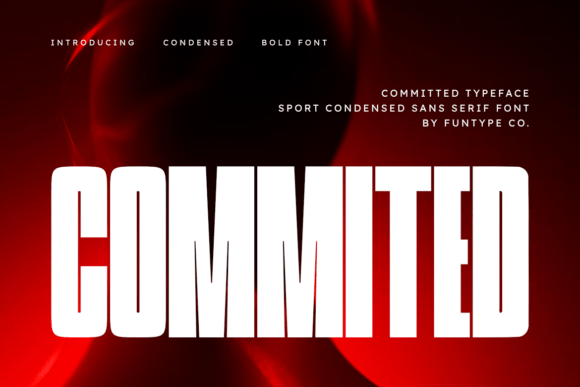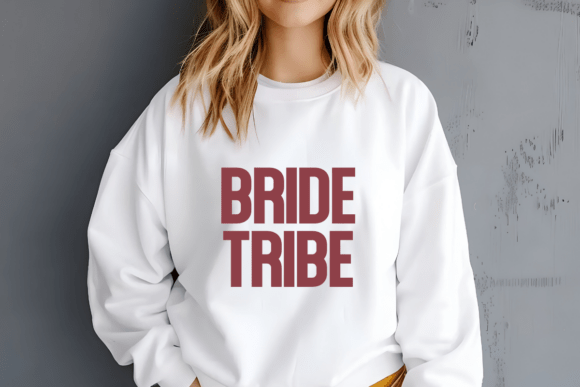
Commited Font: Bold Sans Serif Style for Craft and Product Design
Commited for Craft Labels and Product Packaging
Commited is a bold and powerful sport condensed sans serif font designed for impactful and commanding typography. With its tall, refined structure and heavy geometric lines, this font is perfect for crafters and small business owners who need clear, strong lettering on product labels and packaging. Whether you're designing candle jars, soap tags, or boutique-style product wraps, Commited ensures your brand name or product title stands out with confidence and clarity. The condensed form allows for compact yet legible use, making it ideal for small labels and tags without losing visual punch.
Commited for Wedding Invitations and Elegant Stationery
As a sans serif typeface, Commited brings a modern, clean aesthetic to wedding invitations and formal stationery. Its geometric structure gives a contemporary edge, while the bold weight adds a sense of sophistication and strength. Whether you're printing save-the-dates, RSVP cards, or seating charts, this font helps your design feel intentional and professional. Because of its tall letterforms, Commited works especially well for names and titles, ensuring readability even in smaller print sizes or digital previews.
Commited for Wall Art and Home Decor Signs
If you create wall art or farmhouse-style signs, Commited brings a strong visual presence to your pieces. The bold and powerful structure makes it ideal for motivational quotes, family name signs, or seasonal decor. Whether you're laser-cutting wood signs or printing on canvas, this font holds up beautifully in both small and large formats. Its clean, geometric lines pair well with minimalist or industrial design themes, making it a versatile choice for home decor creators.
Commited for Digital Printables and Planner Pages
For digital product creators, Commited is an excellent choice for planner pages, digital stickers, and printable calendars. Its condensed style allows for compact headers and titles without sacrificing legibility. As a font that’s both bold and structured, it helps organize content visually, guiding the viewer’s eye through the layout with ease. Whether you're designing weekly planners or goal trackers, Commited adds a modern, organized feel to your digital downloads.
Commited for T-Shirts, Mugs, and Merchandise Design
When designing wearable or home goods like t-shirts, mugs, or tote bags, typography needs to be both readable and visually appealing. Commited fits the bill perfectly. This sans serif font’s bold nature ensures that short phrases or names remain legible, even when screen-printed or heat-transferred onto fabric or ceramic. Its geometric design also lends itself well to minimalist and modern apparel branding, making it a go-to for small shop owners creating custom merchandise.
Commited for Seasonal Crafts and Holiday Packaging
From Christmas tags to Easter basket labels, Commited is a versatile font for seasonal crafting. Its bold, condensed style makes it perfect for small holiday tags, gift toppers, and themed packaging. The tall, refined structure gives a polished look to your festive creations, whether printed on cardstock or cut with a Cricut machine. As a display font, it draws attention without overwhelming the design, keeping your seasonal products looking professional and cohesive.
Pairing Commited with Script and Serif Fonts
For layered designs like wedding invitations or boutique product packaging, pairing Commited with a script or serif font can create visual harmony. Try using a flowing script for accents or subheadings, while Commited anchors the main text. This combination works well for logos, branding materials, and SVG-style designs, offering contrast while maintaining a unified aesthetic. The bold nature of Commited balances softer script styles, creating a dynamic yet readable layout.
Readability Tips for Commited in Craft Projects
While Commited is ideal for short phrases, titles, and display use, it's best used sparingly for longer text. For product tags, stickers, or printed cards, ensure that the font size remains legible, especially when cutting with machines like Silhouette or Cricut. Preview your designs at actual size before printing or cutting to confirm clarity. When using Commited in digital mockups or layered SVG files, consider spacing and alignment to maintain visual balance and readability.